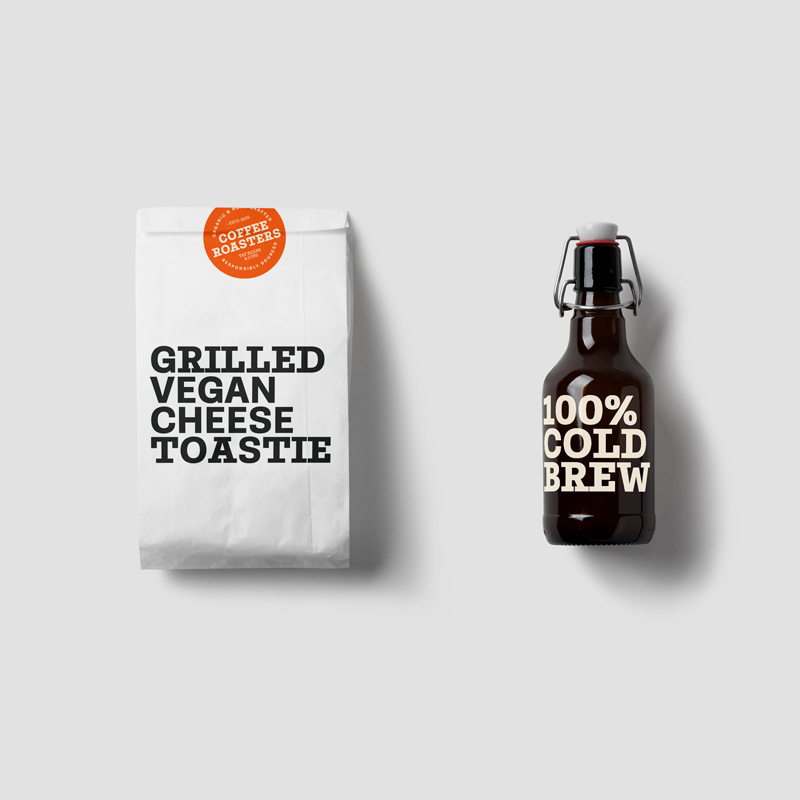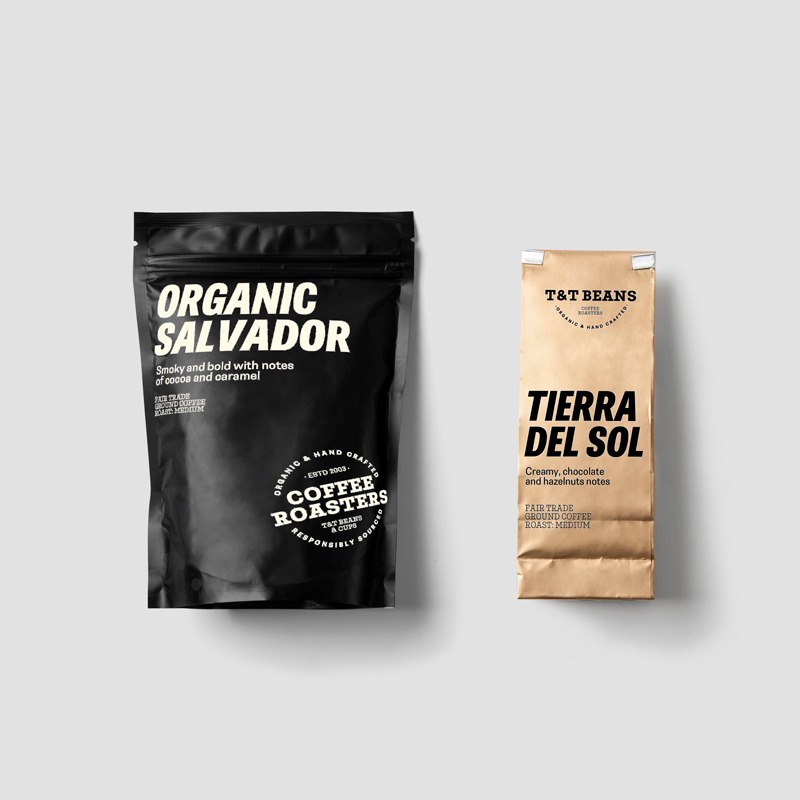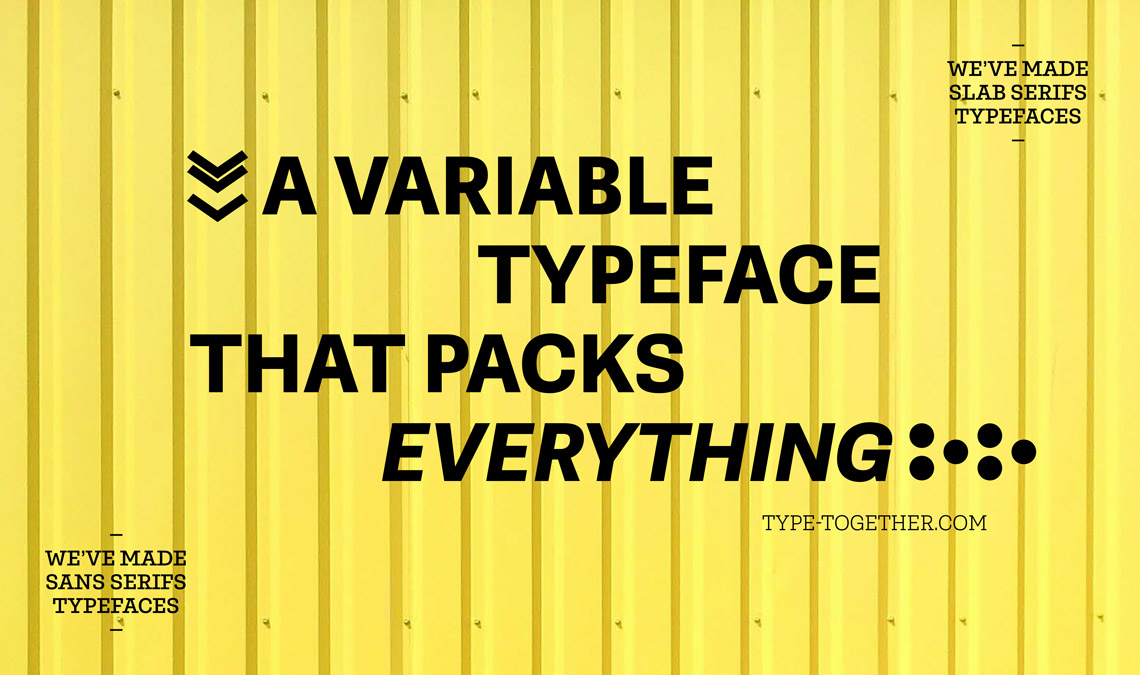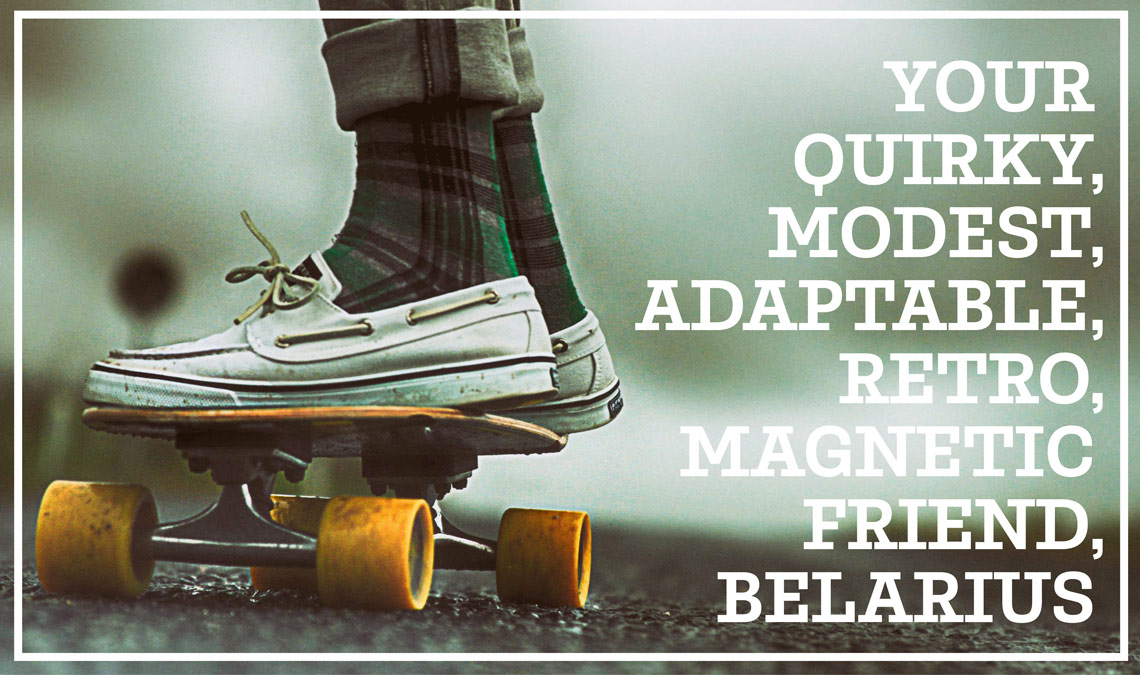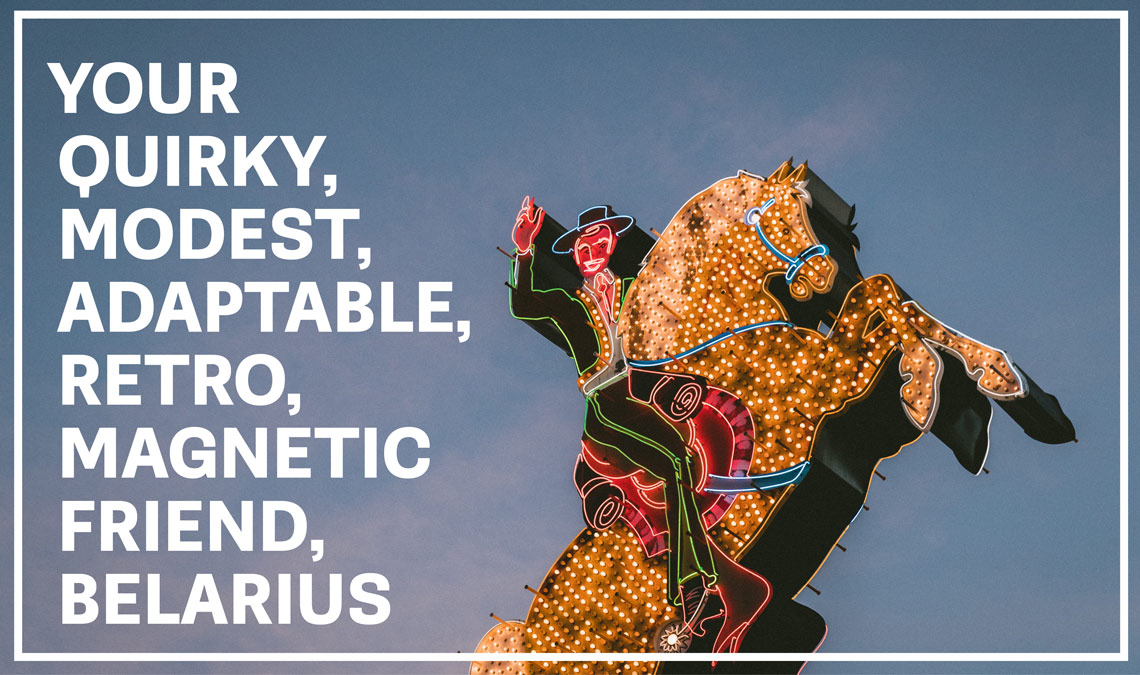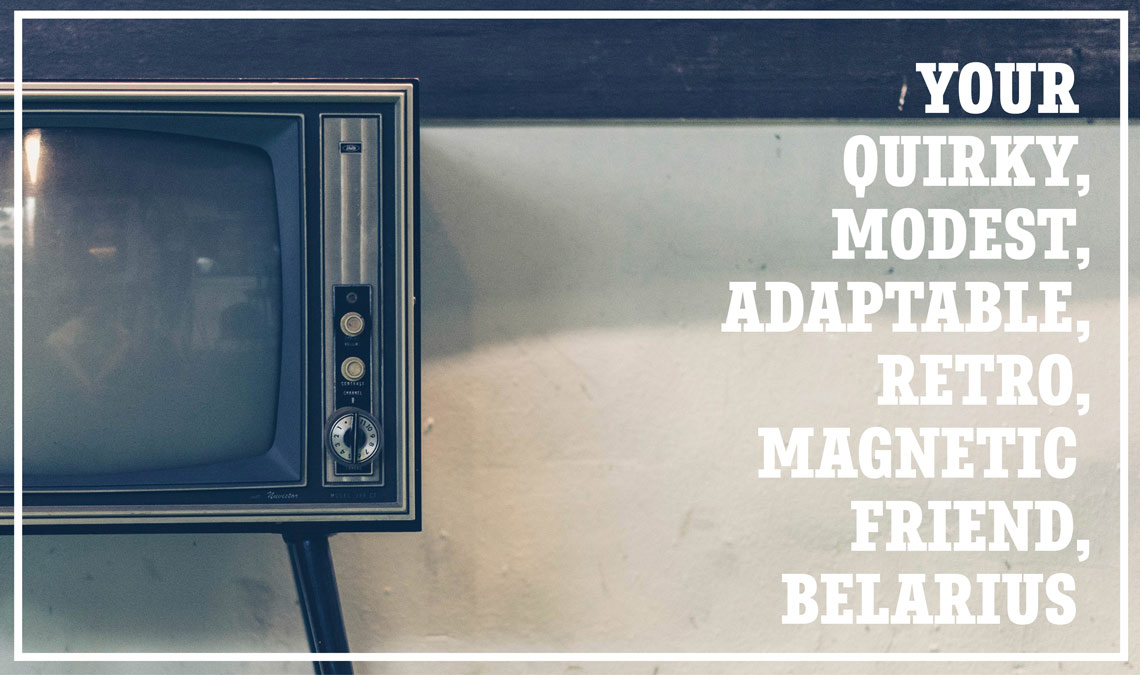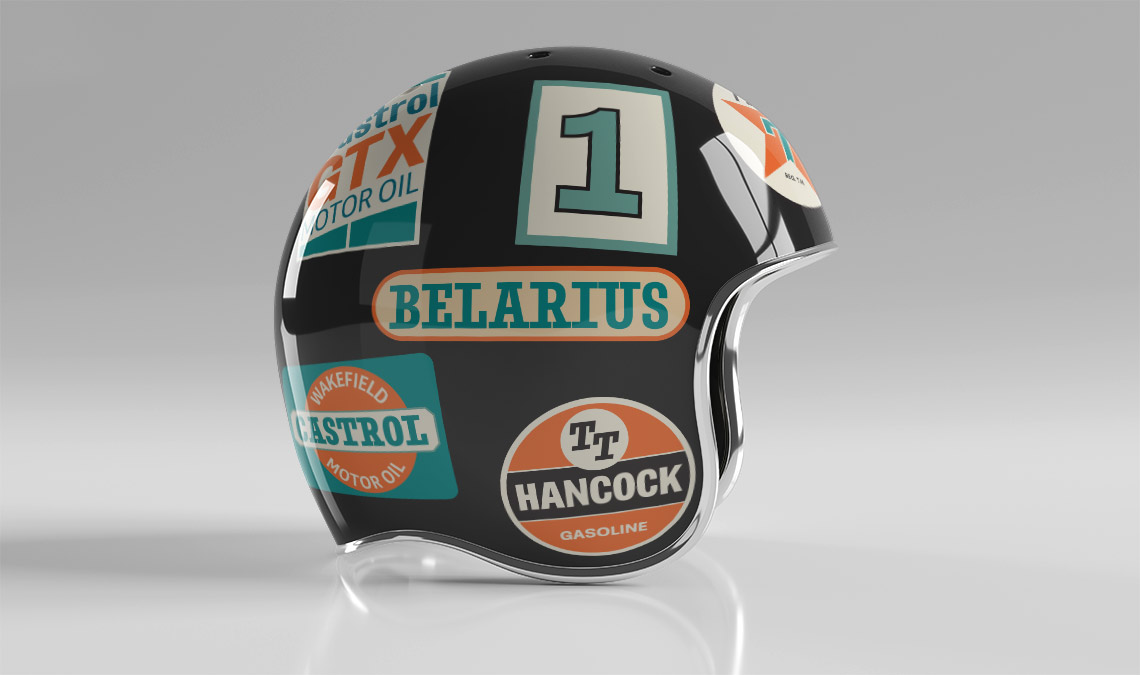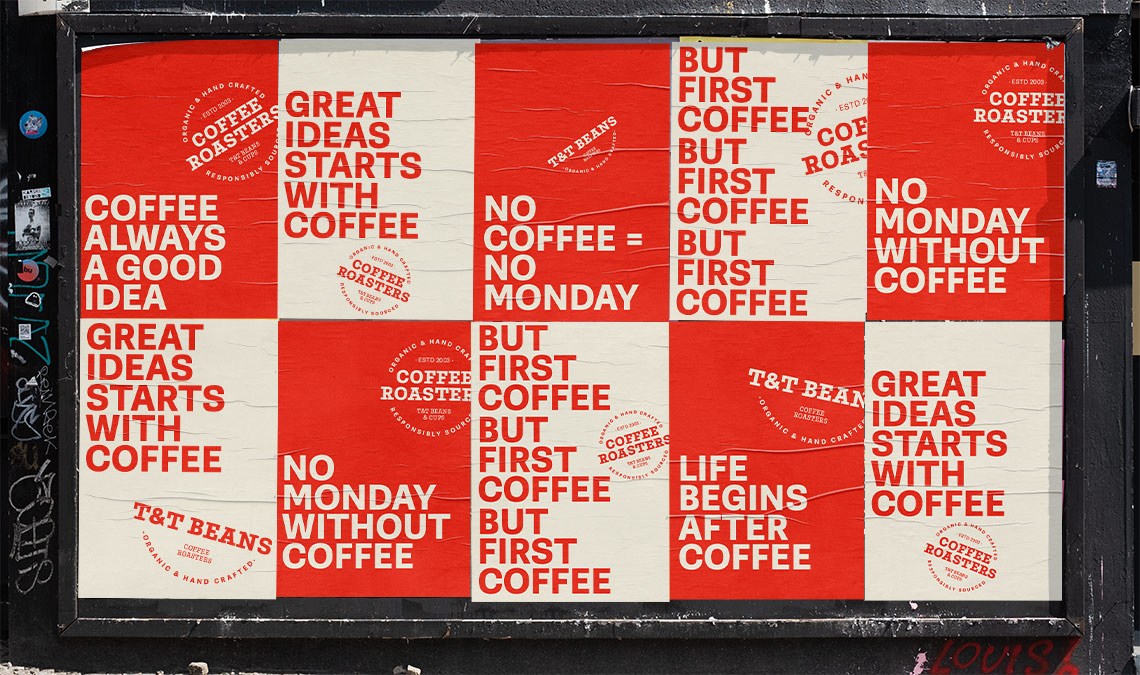
New release: Belarius
Very happy to announce the release of the suave editorial typeface, Belarius! Part of a trifecta, this is the font family focused on packaging, headlines, posters, subheads & ads.
A few years ago José Scaglione and Veronika Burian decided to build a three-family story arc that would encompass the demands of skilled text designers. Belarius is the sans and slab serif middle release of that planned triptych, able to claim its own bright spot on the release charts and also be appreciated as part of the trilogy, the other being Catalpa and Aneto (still in progress). Belarius is by nature restrained to fulfill its midrange purpose: packaging, headlines and subheads, advertising, decks, and pull-quotes. And its variable font technology means you are able to fine-tune adjustments for perfect copy, every time.